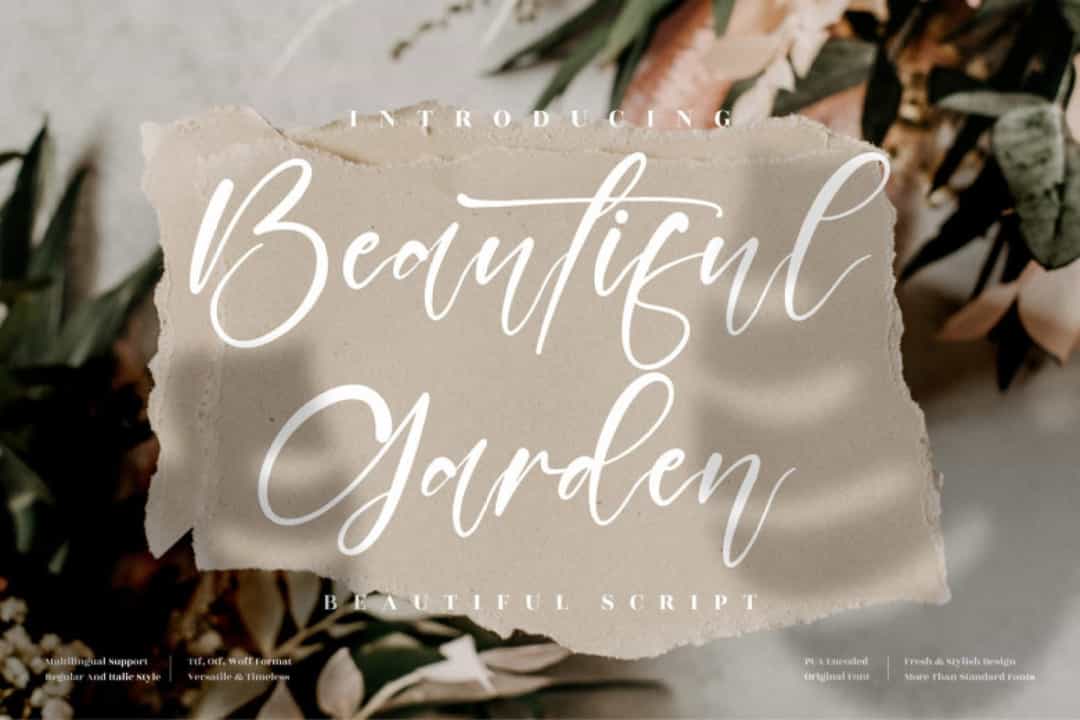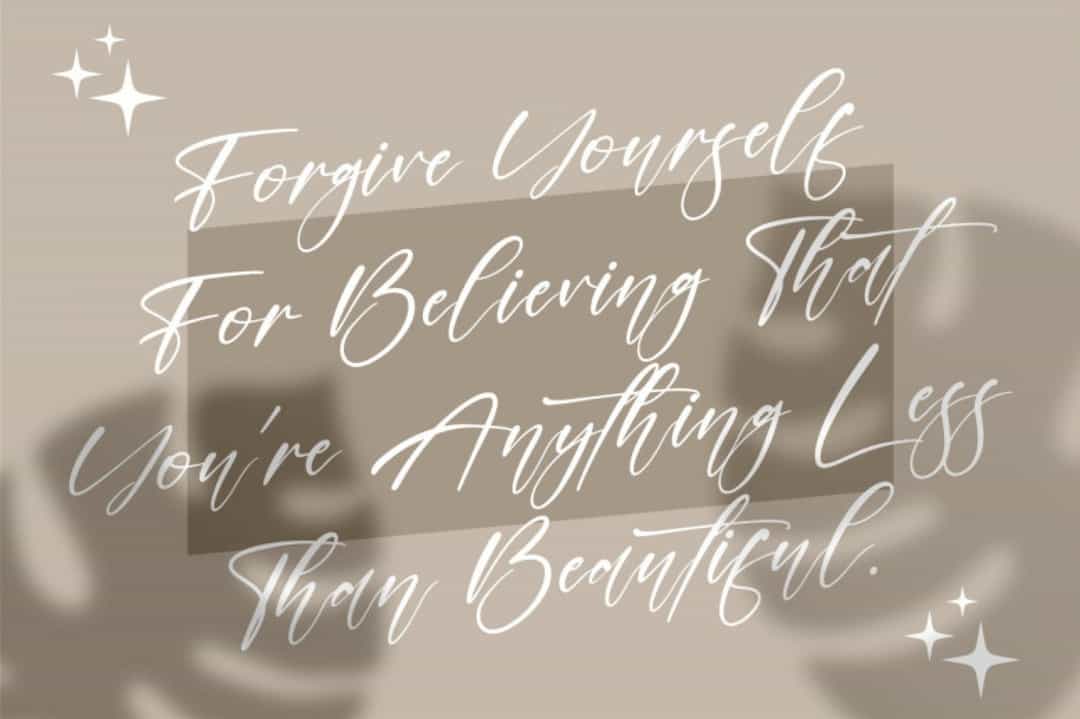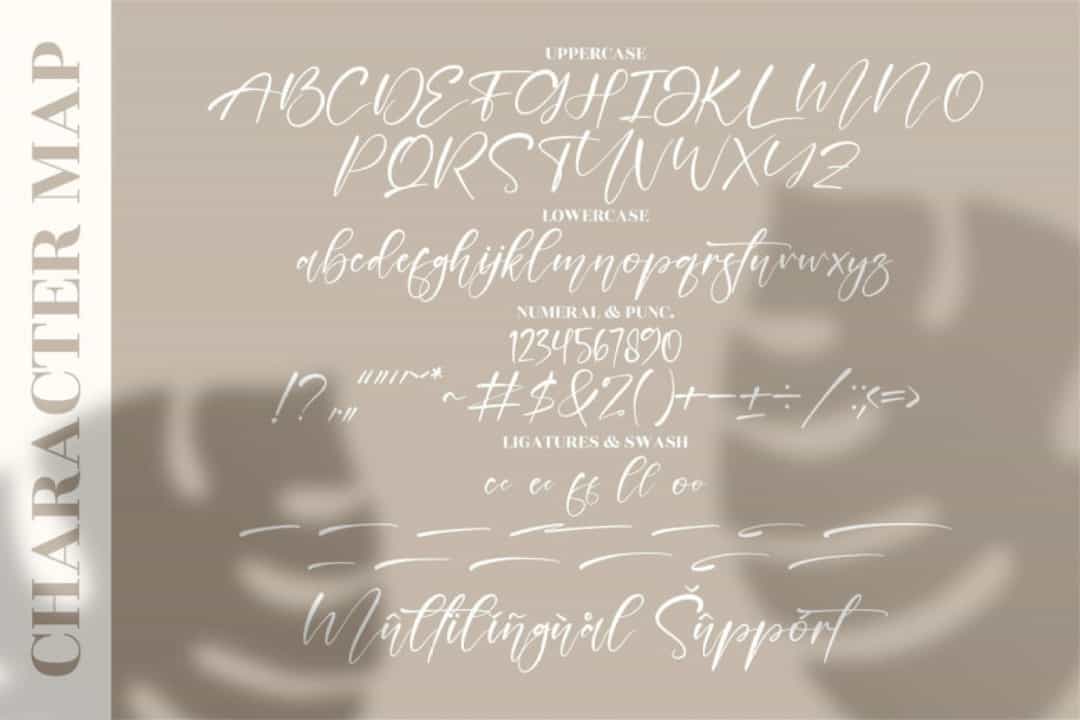
Beautiful Garden is an exquisite handwritten script typeface that exudes sophistication and grace. Specifically created to meet the needs of designers who require an elegant and fresh style to their designs, Beautiful Garden will add elegance and class.